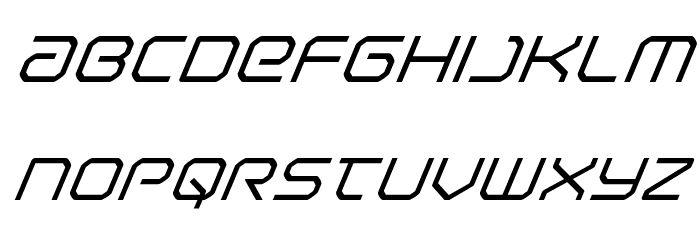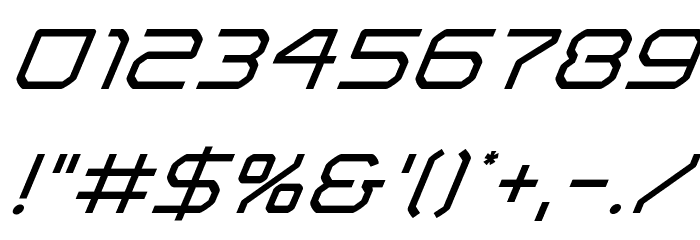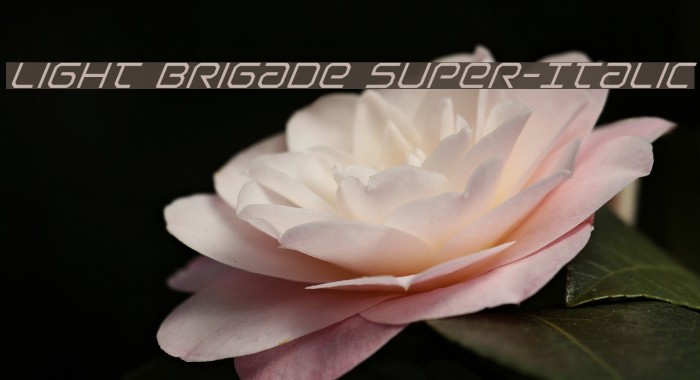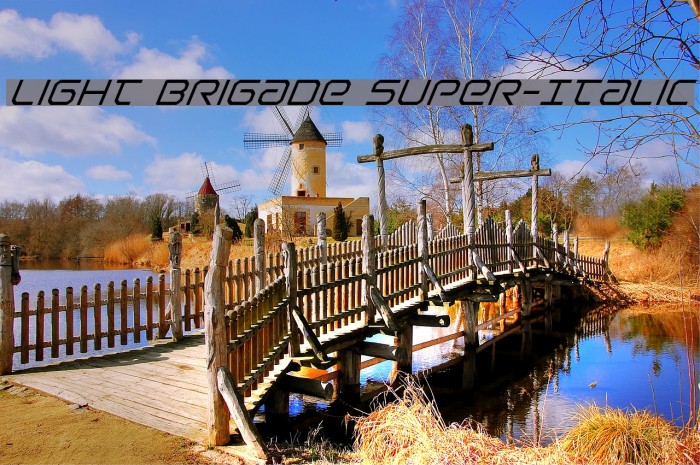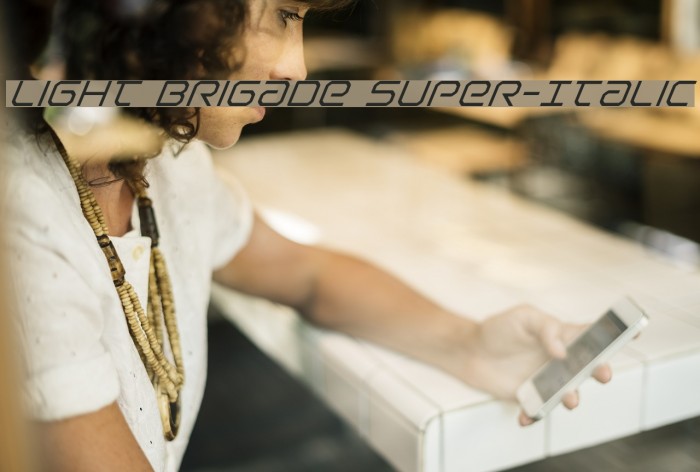
Light Brigade Super-Italic Font
This font features a sleek, italicized design with a modern and futuristic aesthetic. The characters are slightly condensed, giving a streamlined appearance. The strokes are consistent in thickness, providing a uniform look across all letters and numbers. The angular edges and geometric shapes contribute to its dynamic and energetic feel. This style is particularly effective for conveying a sense of speed and innovation, making it suitable for tech-related projects or branding that requires a contemporary touch.
A modern, italicized font with a sleek and futuristic design.
- Proposed Projects: Ideal for tech branding, futuristic designs, sports team logos, and dynamic advertising campaigns.